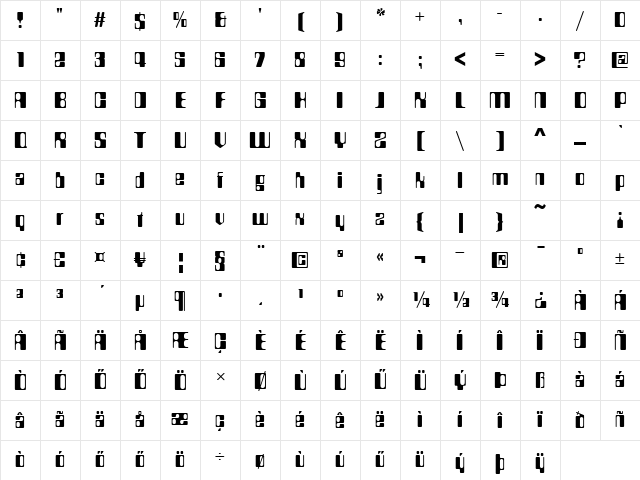
H_CountdownD Regular
Design Context for H_CountdownD
H_CountdownD is a composed and adaptable typeface that performs quietly and consistently across a wide range of design contexts.